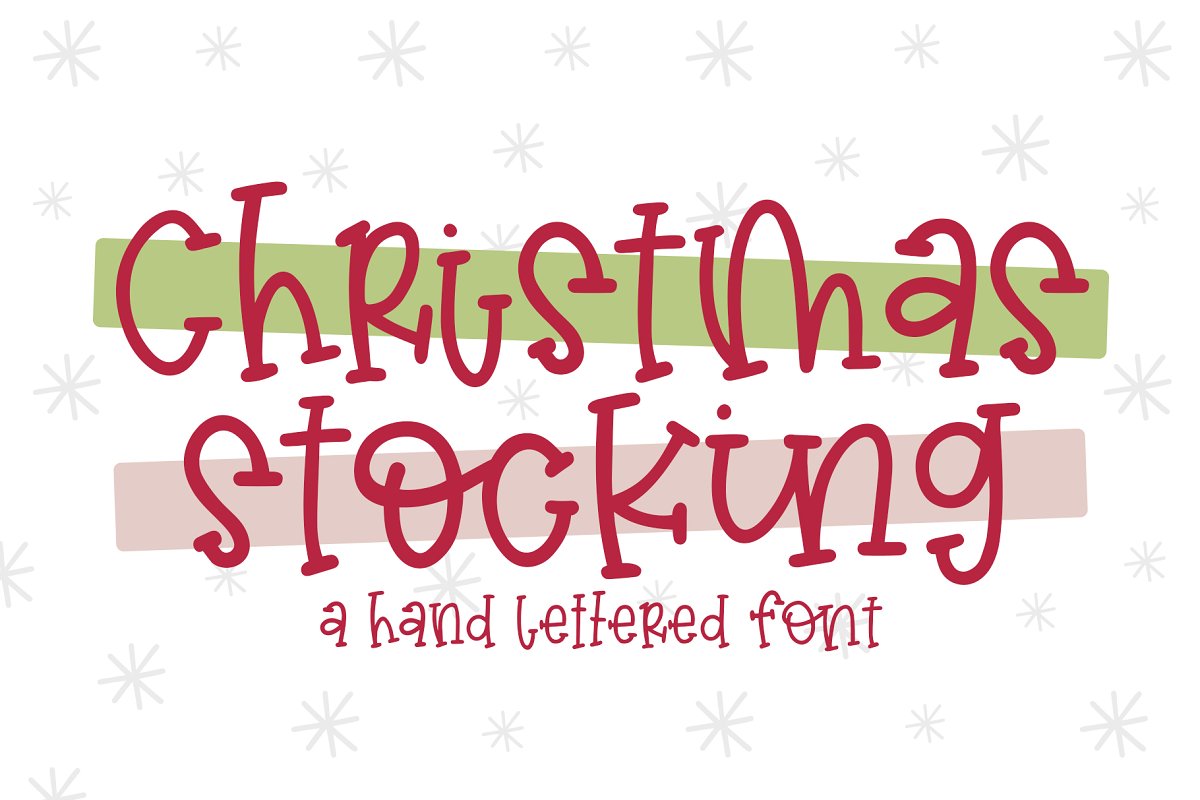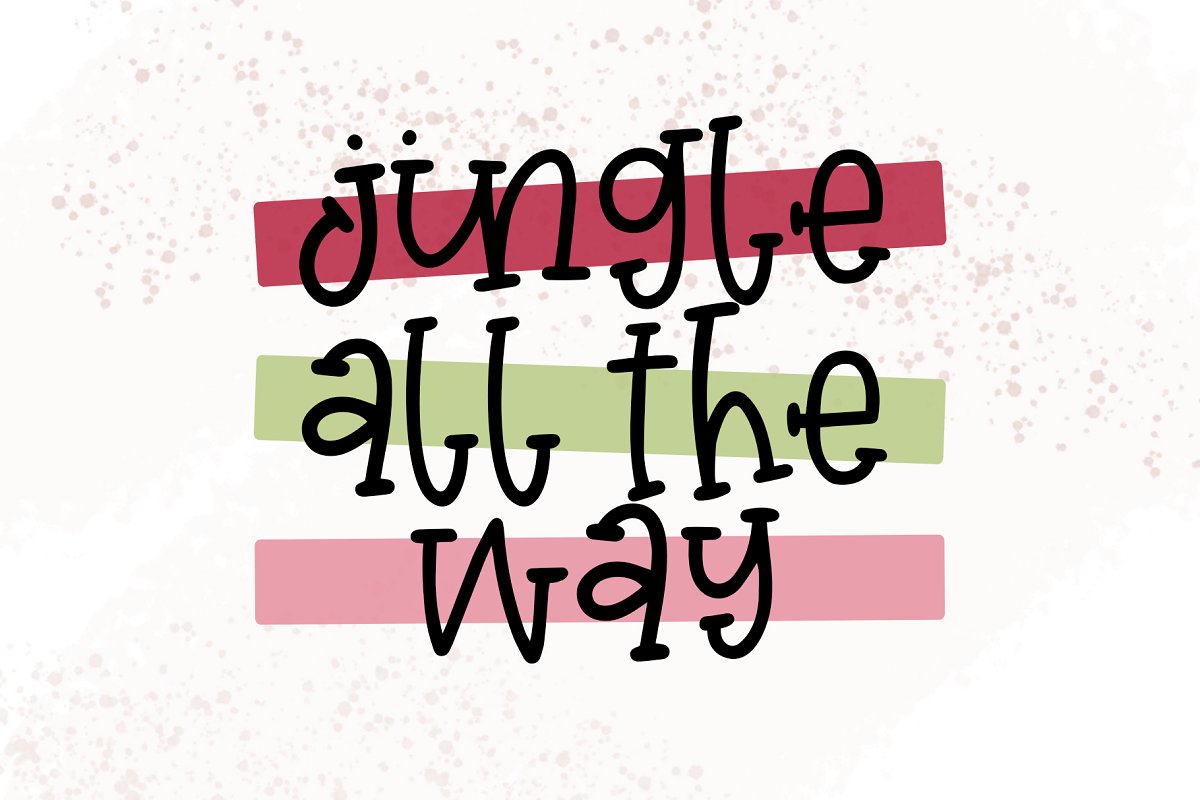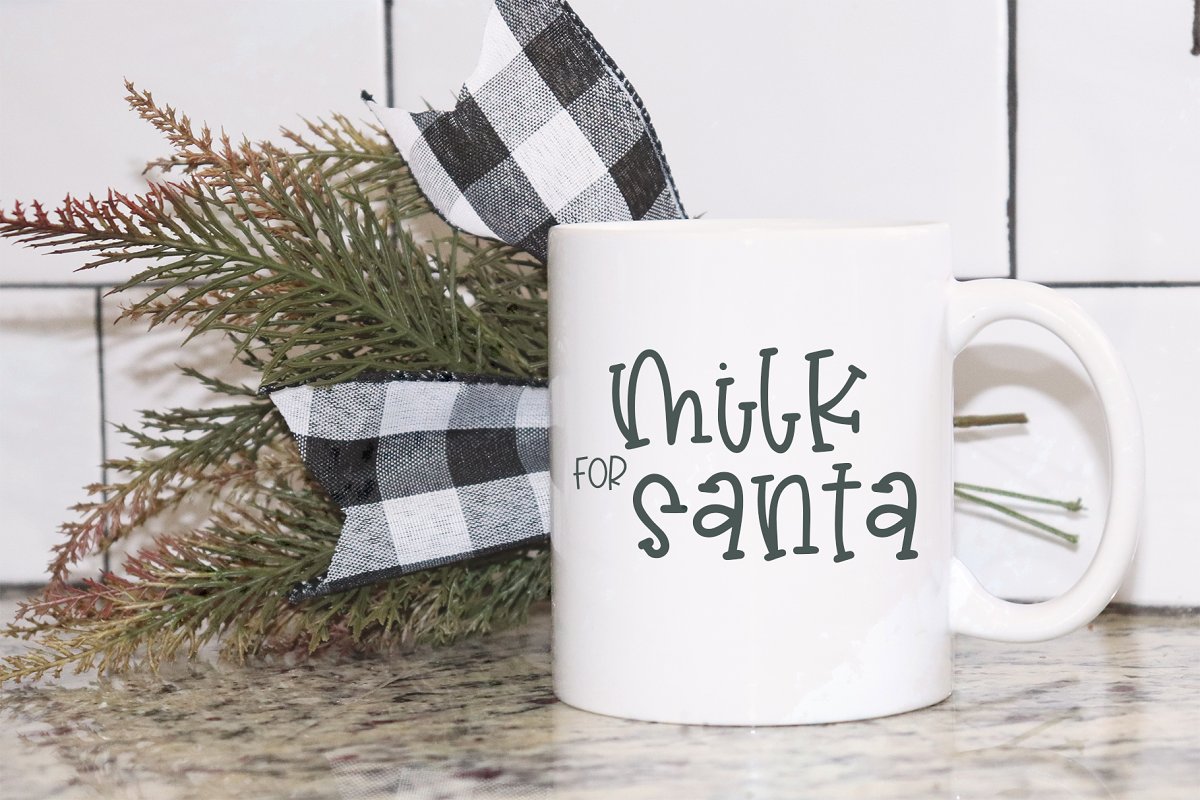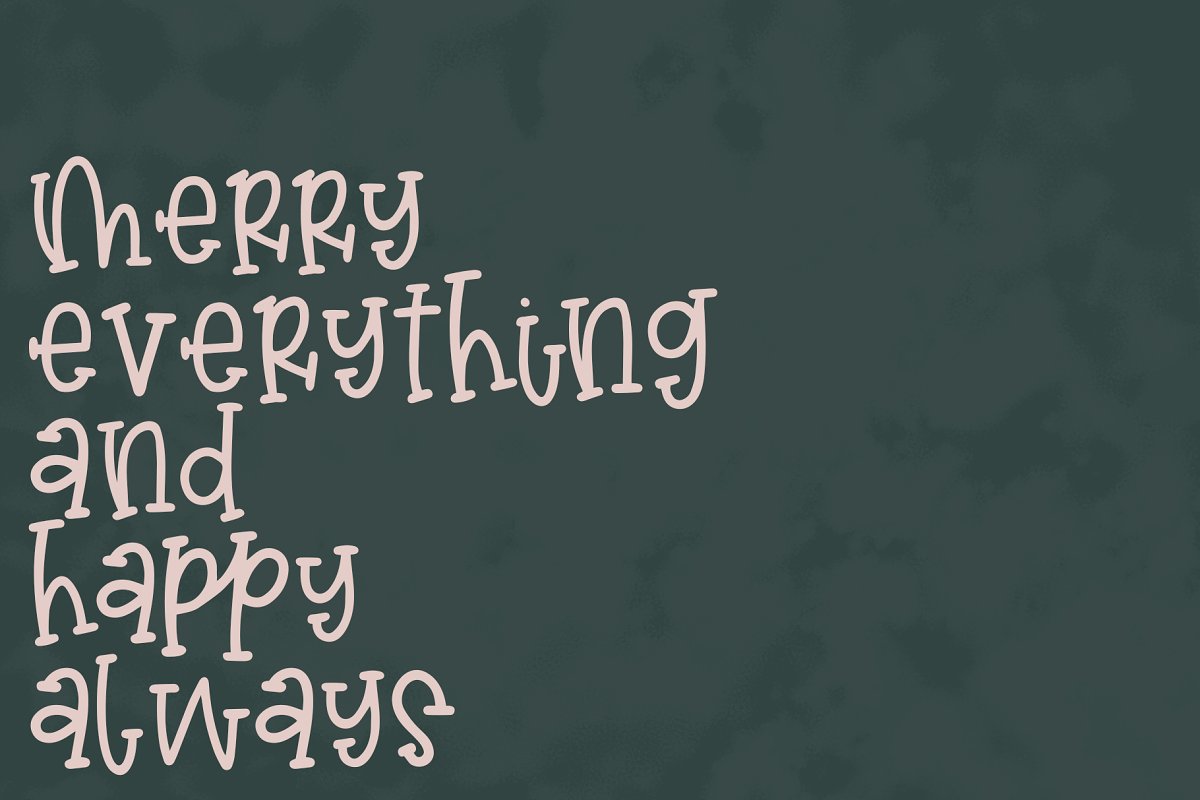
About the Christmas Stocking
A super cute hand lettered font that can be used for any occasion! Christmas Stocking includes 40 ligatures for a more unique and hand lettered feel!This font can be used for all kinds of things such as Cricut projects, digital designs, social media, invitations, shirts, mugs, wood signs, and so much more!This font includes:ChristmasStocking, TTFChristmasStocking